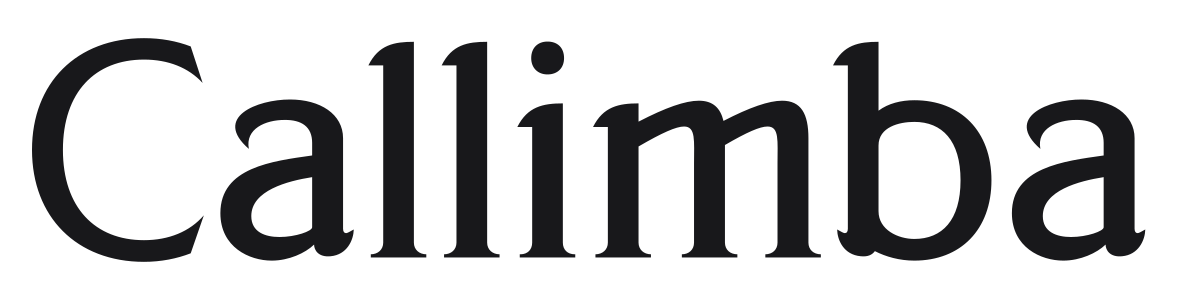
Callimba
Callimba is a contemporary serif from Letterena Studios with warm old-style roots and a clean, modern editorial finish. Medium stroke contrast and bracketed serifs give it a comfortable authority, while subtle calligraphic touches in certain characters keep it from feeling too stiff. It works well at headline and display sizes in branding, editorial, and lifestyle contexts.